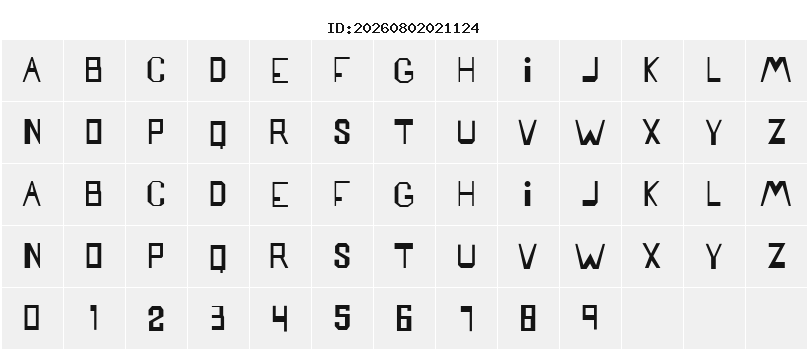
• Font Name: Mattress
Mattress.ttf is a modern, elegant sans-serif font designed for ultimate readability and visual harmony. Perfect for branding, headlines, web design, and print materials.